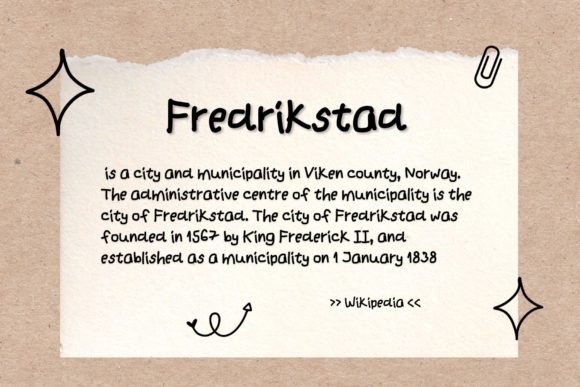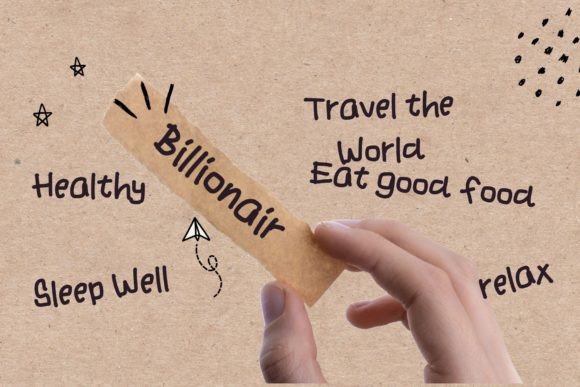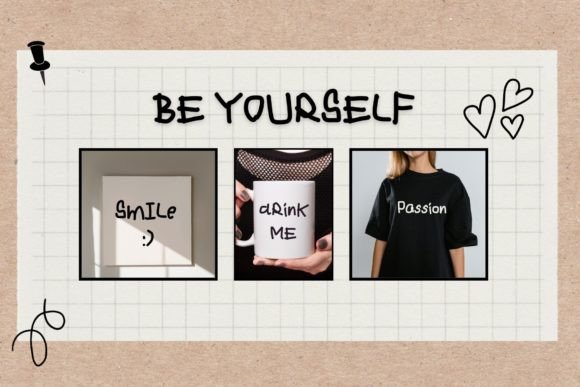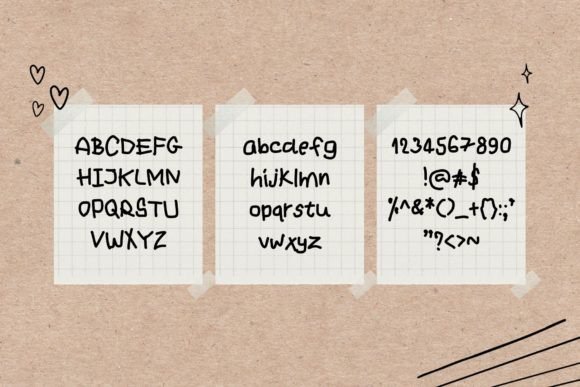
The Ultimate Guide to Fredrikstad Font: A Fun and Friendly Handwritten Script
I’ll never forget the time I was working on a fun project for a client who wanted a playful, handwritten font to match their brand’s quirky personality. I spent hours scouring the internet for the perfect font, but nothing seemed quite right. That was until I stumbled upon the Fredrikstad Font. It’s a game-changer for anyone looking for a fun and friendly handwritten script font that’s perfect for a wide range of creative projects.
What is Fredrikstad Font?
Fredrikstad Font is a beautiful, handwritten script font that’s designed to look like inelegant handwriting. It’s perfect for creating fun and playful artwork that’s sure to bring a smile to people’s faces. The font is based on the idea that handwriting doesn’t have to be perfect to be charming. With its unique, imperfect look, Fredrikstad Font is ideal for a wide range of projects, from T-shirt designs and mugs to wall art, bags, and digital planners.
Honest Review: What I Love and What I Don’t
- ✨ Unique and playful design that’s sure to stand out
- ✅ Perfect for a wide range of creative projects, from digital designs to physical products
- ✅ Easy to read and understand, even at small sizes
- ✅ Regularly updated with new features and improvements
The Not-So-Good Stuff
- ⚠️ Some users may find the font a bit too playful or childish for certain projects
- 🤔 Limited support for non-English languages
The Story Behind Fredrikstad Font
Fredrikstad Font was designed by a team of creative typographers who wanted to create a unique and playful handwritten script font. The font is inspired by the idea that handwriting doesn’t have to be perfect to be charming. The designers behind Fredrikstad Font drew inspiration from everyday handwriting and aimed to create a font that would be perfect for a wide range of creative projects.
| Font Name | Fredrikstad Font |
| Author | No.9 Lettering |